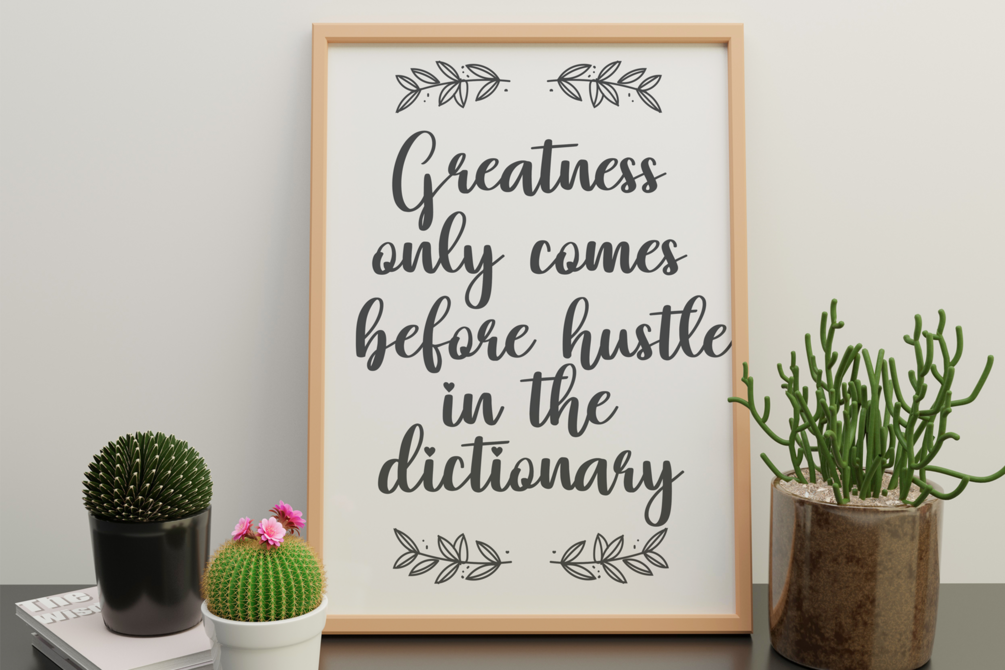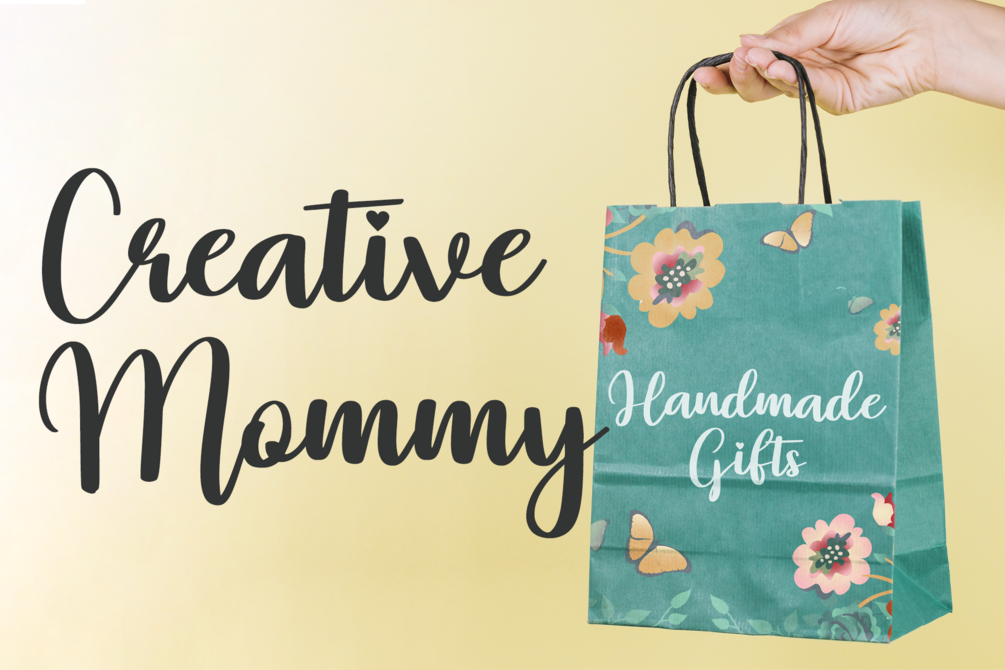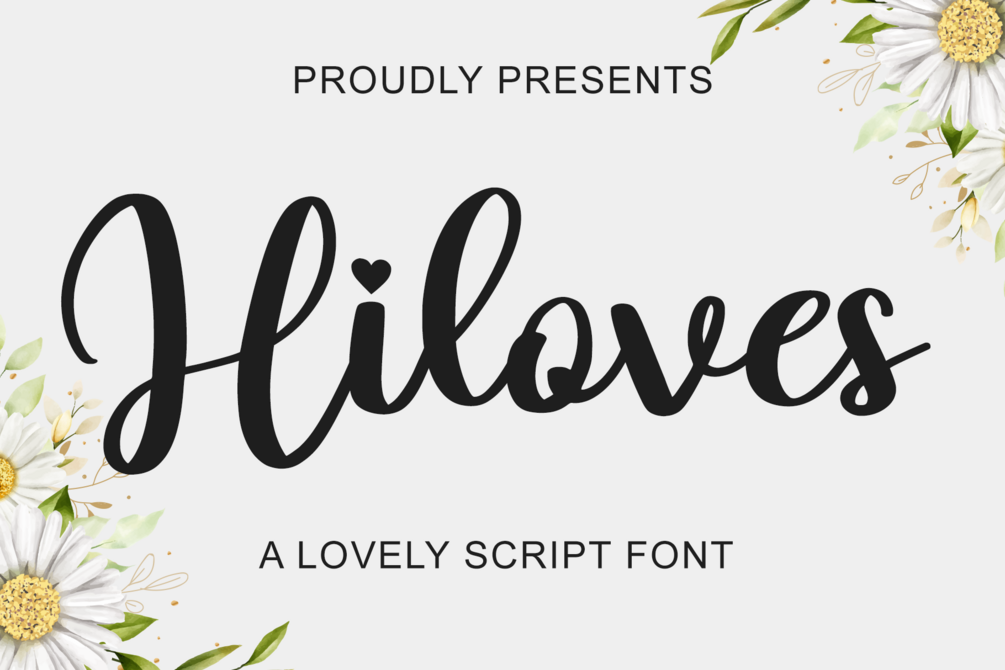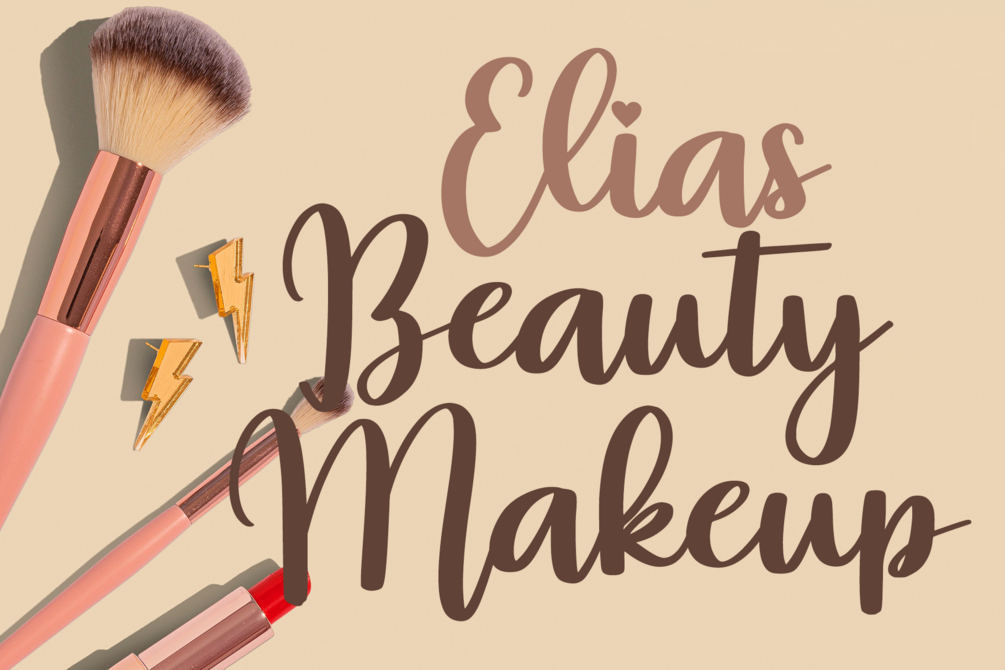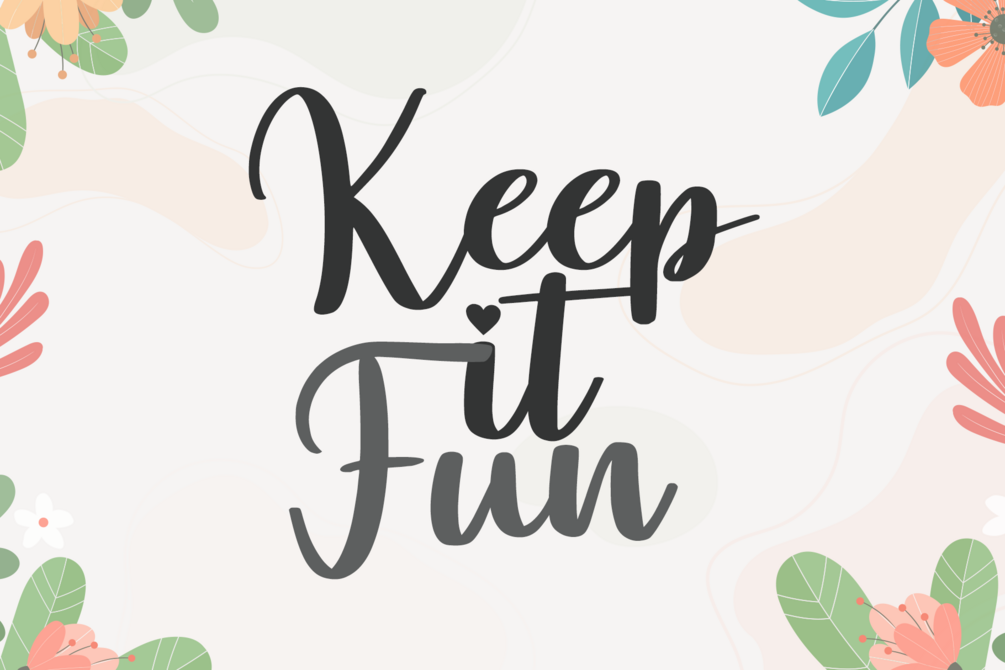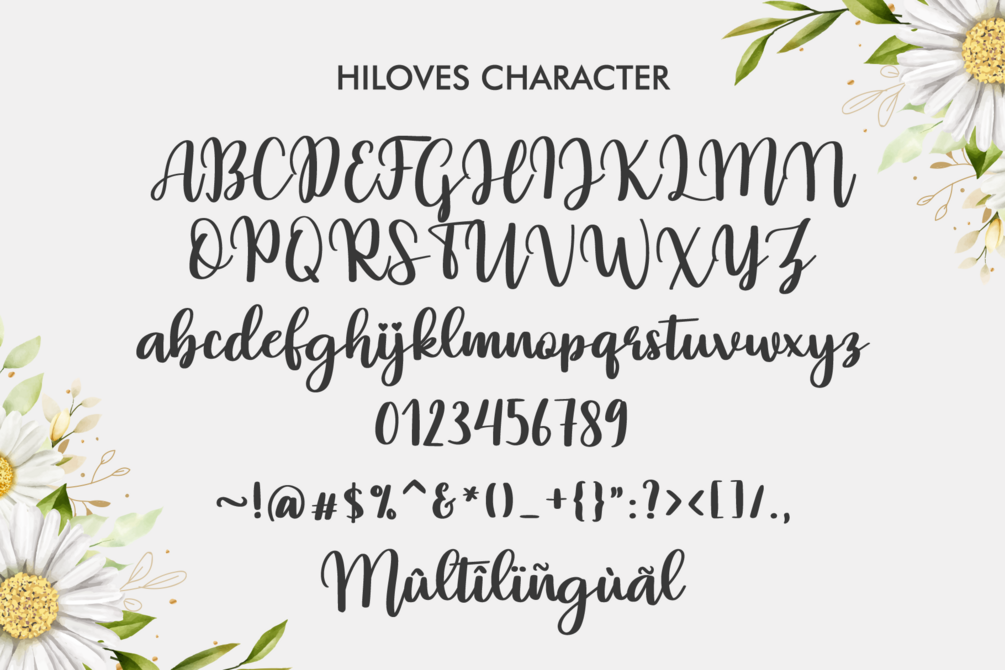
Hiloves
Hiloves is a dainty handwritten script font with genuine cursive style and romantic charm. This gentle calligraphy font adds a joyful, hand-lettered touch to any design β perfect for wedding invitations, love-themed projects, custom mugs, Christmas cards, posters, branding, quotes, and more.
- Ligatures & Alternates